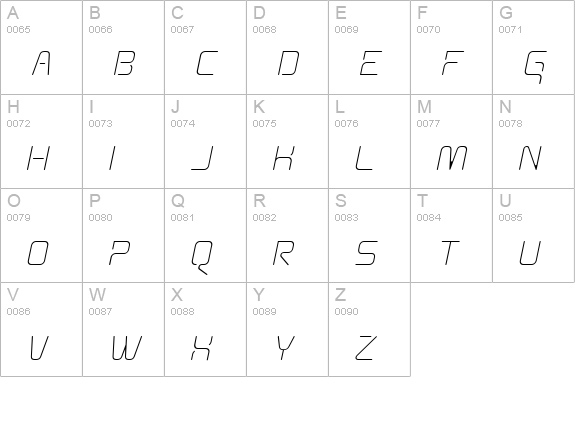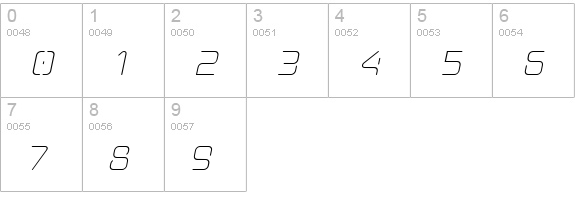
Aunchanted Thin Oblique is a delicate, low-contrast, italic variant in the Aunchanted typeface family \xE2\x80\x94 well suited to fashion editorial, minimal branding, and high-contrast display.
Aunchanted Thin Oblique is a stylish and elegant font that exudes a sense of sophistication and modernity. The sleek and slender design of this font adds a touch of grace to any project, making it perfect for use in branding, logos, invitations, and more. The slight slant of the letters gives it a dynamic and contemporary look that is sure to capture attention. What's even better is that Aunchanted Thin Oblique is available for free download at FontsMarket.com. This means you can elevate your designs with this stunning font without having to spend a dime. Don't miss out on this fantastic opportunity to enhance your projects with Aunchanted Thin Oblique - download it today and let your creativity soar!